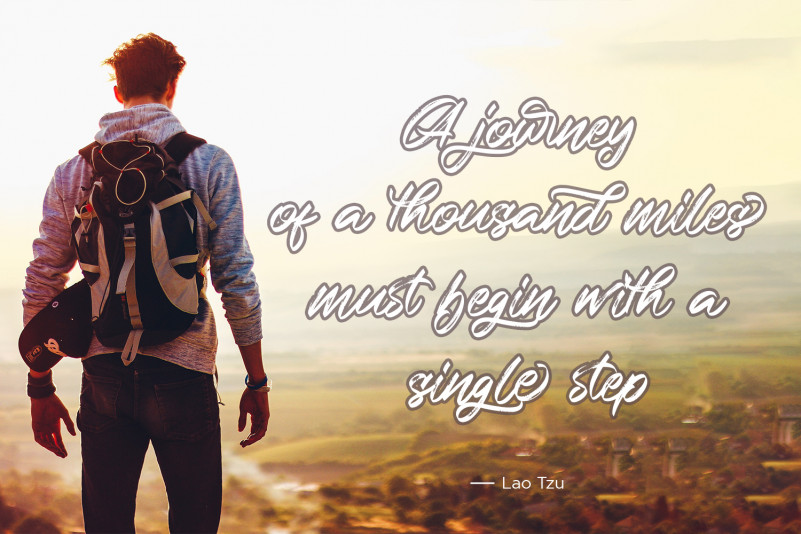
Staples Calligraphy Script Font
Introducing a modern script typeface, It’s an ultra-modern typeface with a tasty flow, snap-perfect characters and start & end swashes.I hope you are interested in this font, if you want to use for your work this font can be used easily and simply because there are a lot of features in it to contain a complete set of letters lower and uppercase letters, assorted punctuation, numbers, and multilingual support.Staples Calligraphy Font also contains several ligatures and alternate style Stylistic Sets for those of you who have software that is able to work OpenType (Photoshop / Illustrator / InDesign).